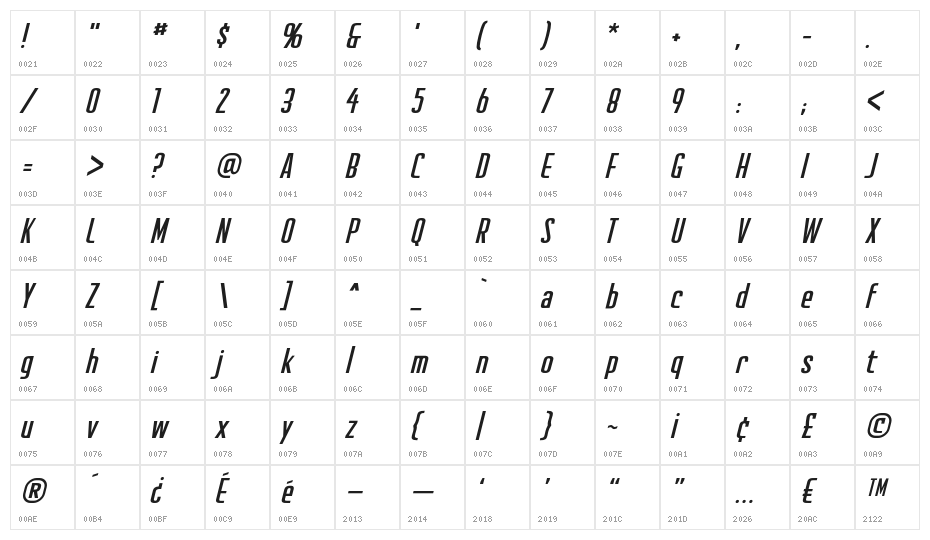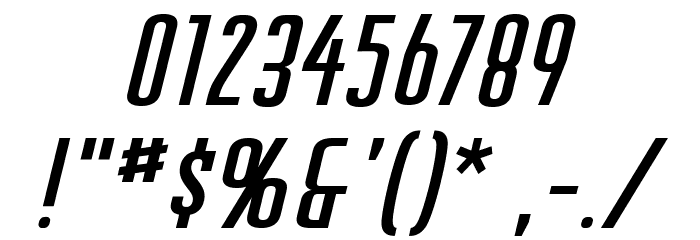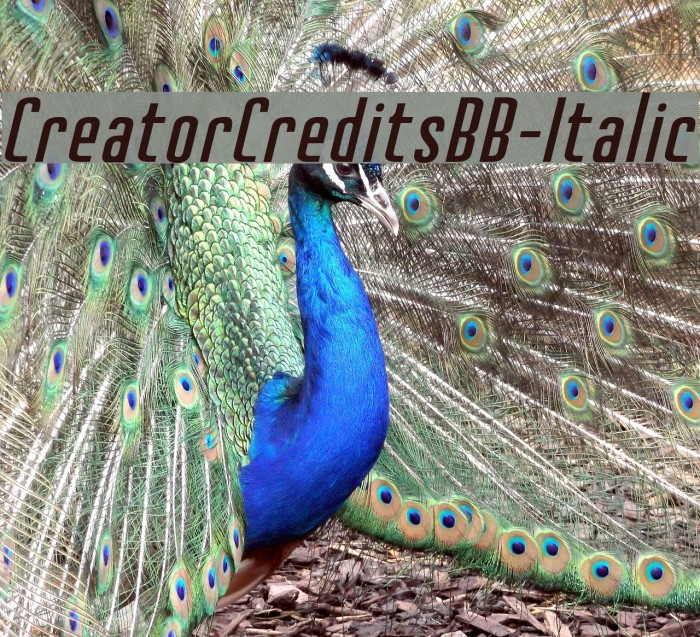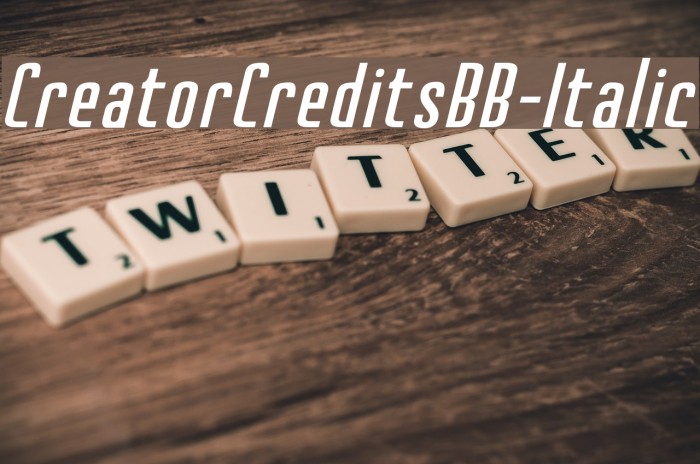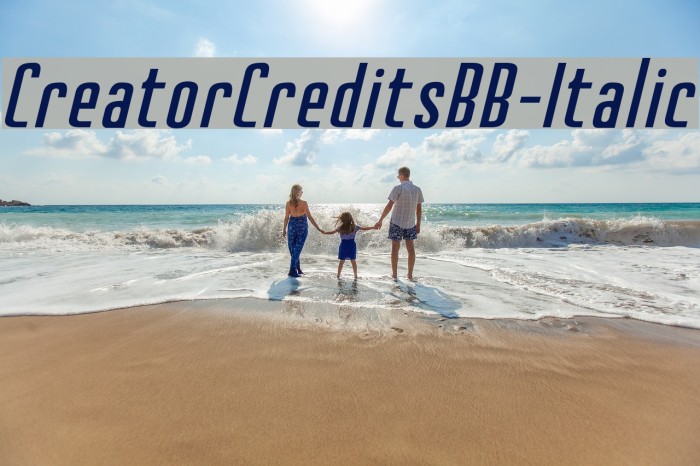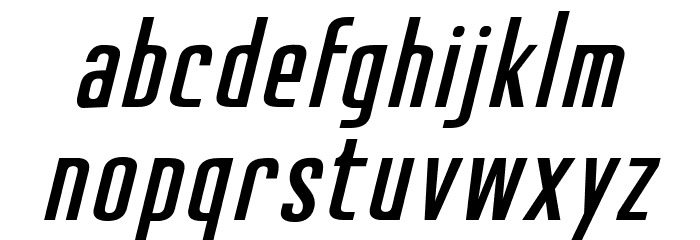
CreatorCreditsBB-Italic Font
✎ Futuristic
CreatorCreditsBB-Italic Description
This font features a modern and sleek design with a distinct italic slant, giving it a dynamic and forward-moving appearance. The characters are tall and narrow, contributing to a condensed look that maximizes space efficiency. The strokes are consistent in width, providing a uniform and clean aesthetic. The uppercase and lowercase letters maintain a cohesive style, while the numerals are clear and easily distinguishable. Special characters are well-integrated, ensuring versatility across various applications. The overall impression is one of sophistication and contemporary flair, making it suitable for a range of design projects.
| Categories | Futuristic |
| Width | Condensed |
| Use Case | Headlines, Logos, Branding |
| Proposed Projects | Ideal for branding, advertising, headlines, and editorial design where a modern and stylish look is desired. |